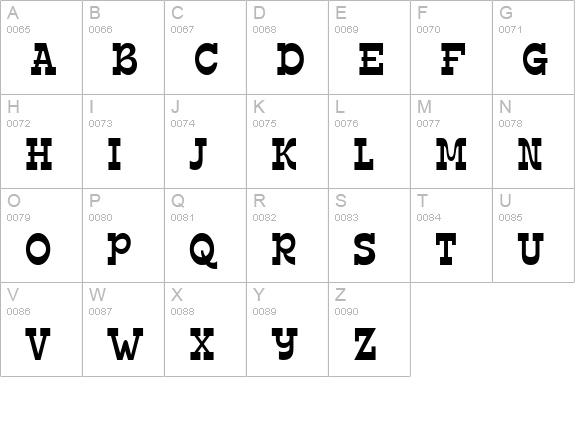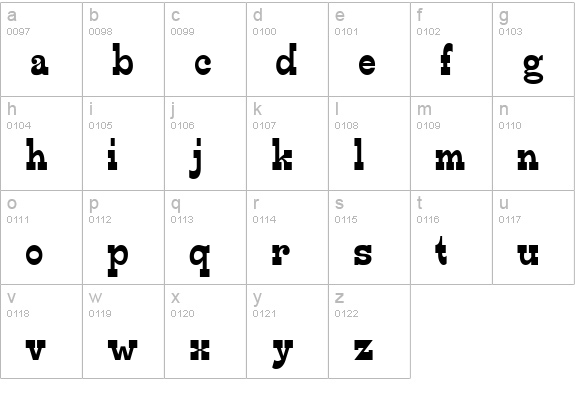
TR Edmunds Font Details
TR Edmunds is a modern and elegant serif font that exudes sophistication and style. Its clean lines and balanced proportions make it perfect for a wide range of design projects, from branding to editorial design. The sharp serifs and subtle curves give TR Edmunds a timeless quality that is both classic and contemporary. What makes TR Edmunds even more appealing is that it is available for free download at FontsMarket.com. This means that you can access this high-quality font without any cost, making it a valuable addition to your font library. Whether you're working on a professional project or a personal creative endeavor, TR Edmunds is sure to elevate your design with its refined aesthetic and versatility. Download TR Edmunds today and experience the beauty of this stunning font for yourself.